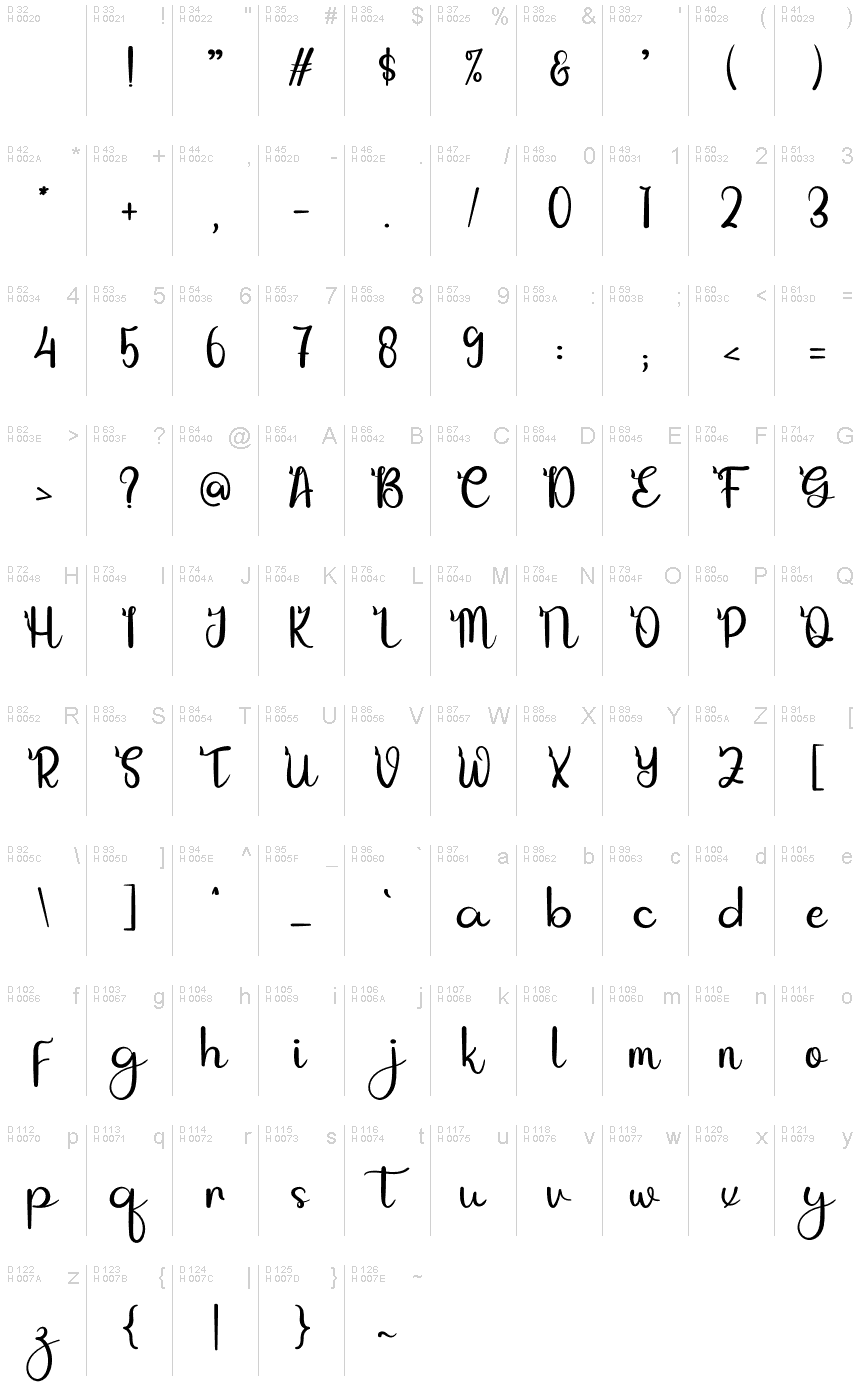
Angelina
Angelina, a charming handwritten font created by Inermedia Studio, adds a whimsical touch to any project. With its semi-light weight and unique letterforms, Angelina is perfect for creating elegant wedding invitations, playful children's book covers, or even adding a personal touch to social media graphics. Its airy strokes and graceful curves make it an ideal choice for anything from greeting cards to product packaging. Let Angelina's effortless style add a touch of creativity to your next project.